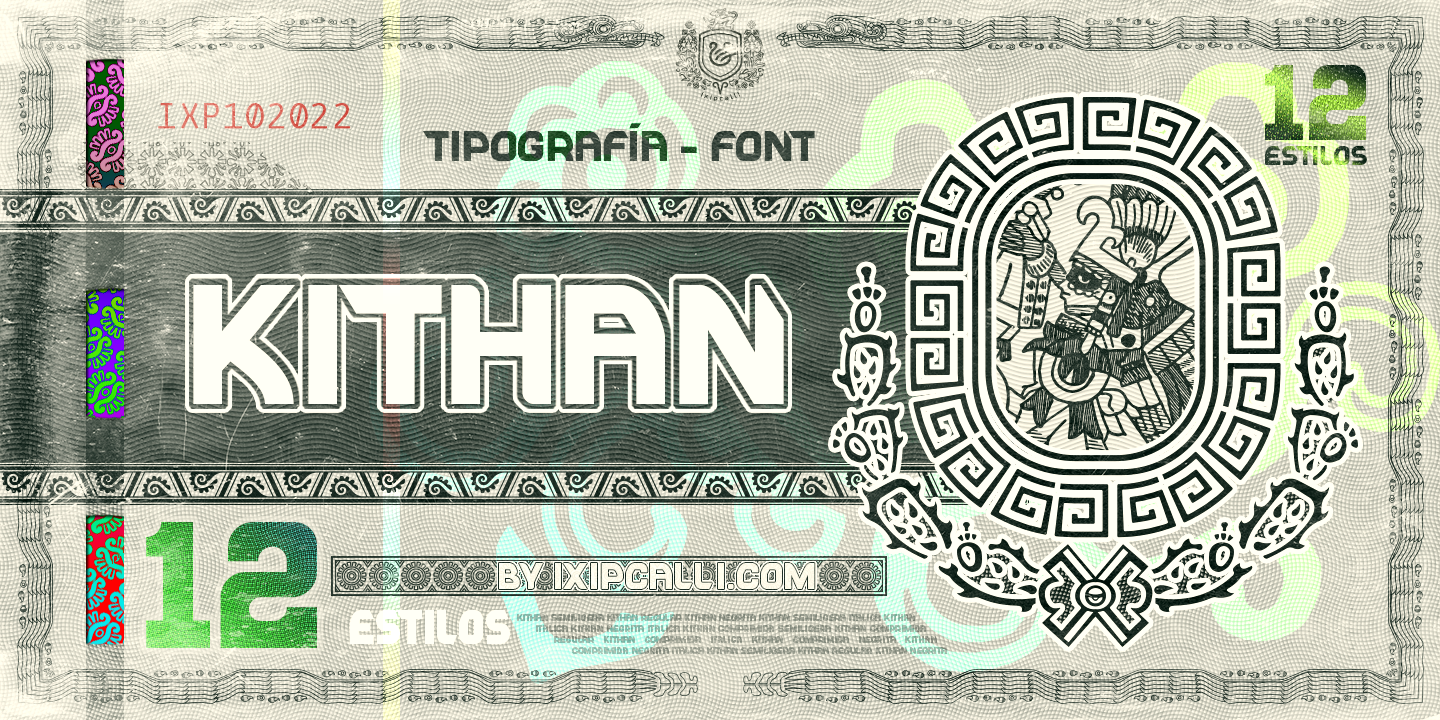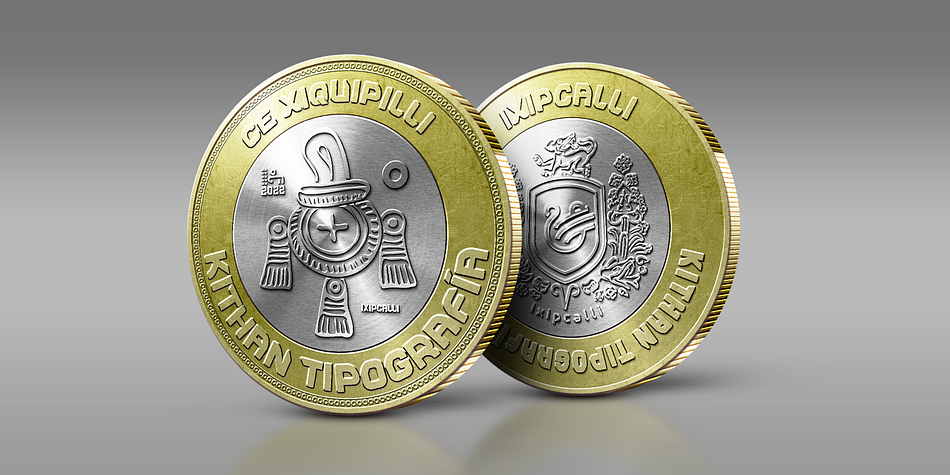
Kithan
Designed by Francisco Arellano, Kithan is a display sans font family. This typeface has twelve styles and was published by Ixipcalli.
Kithan is a font that provides three weights and three compressed from semi-fine to bold, while the compressed have a reduced contrast creating a tall and soft look. Bold font sizes allow letterforms to be appreciated, with the same restraint and focus. Creates a smooth texture for small font sizes and long reads.
Kithan’s theme is inspired by the Mexican currency of the year 2000.